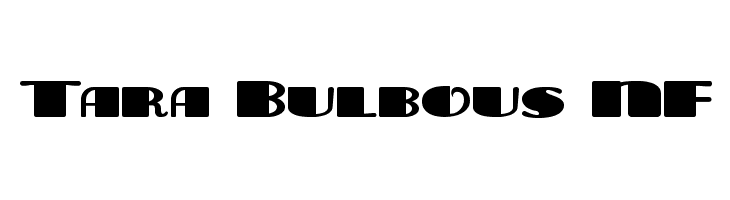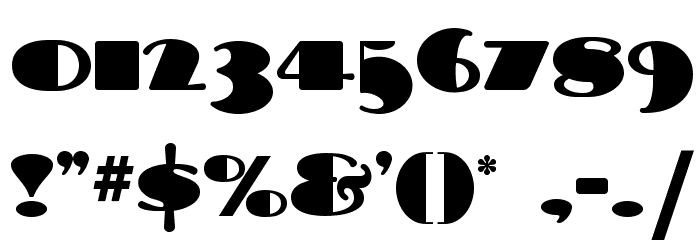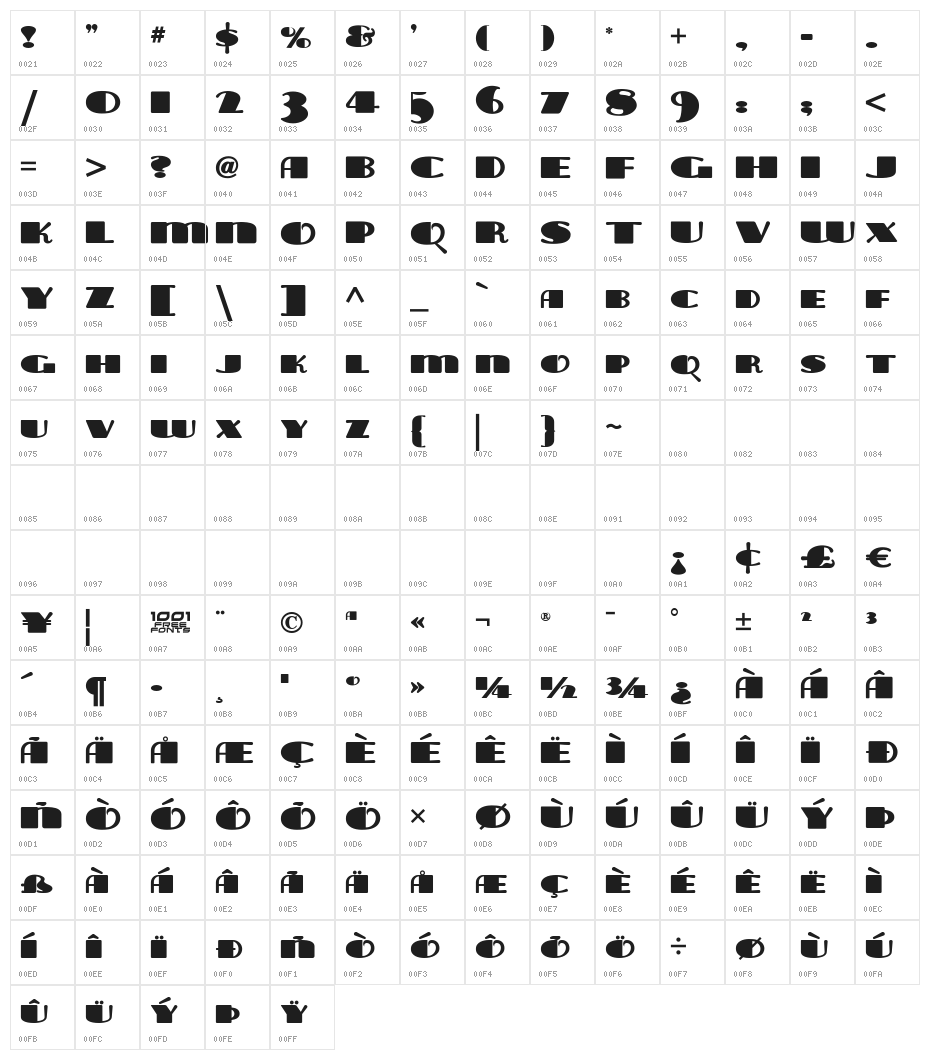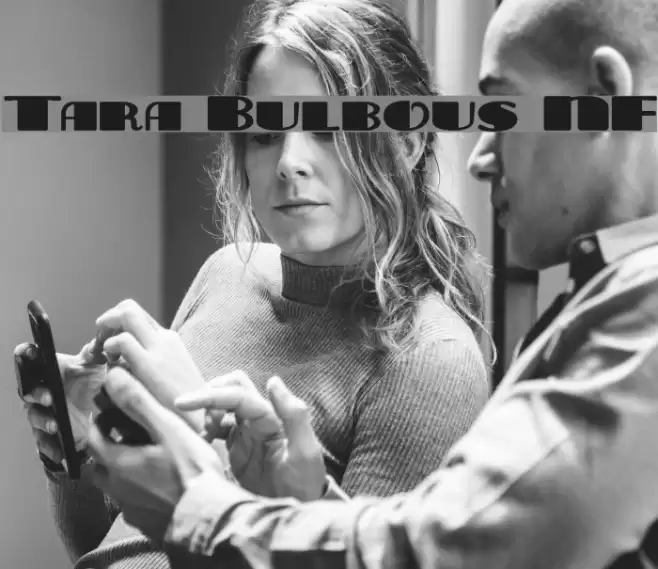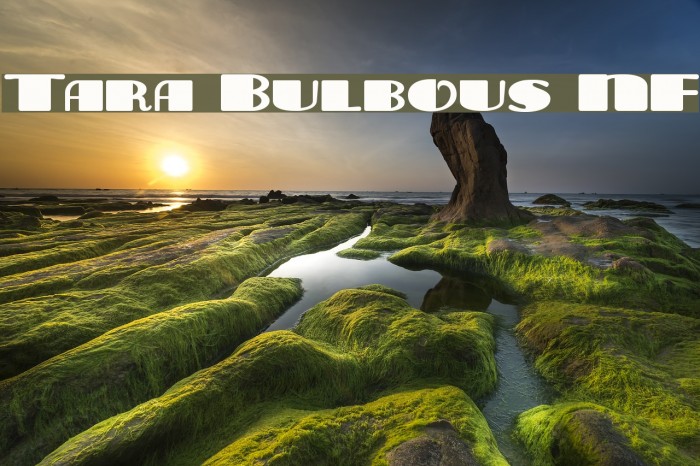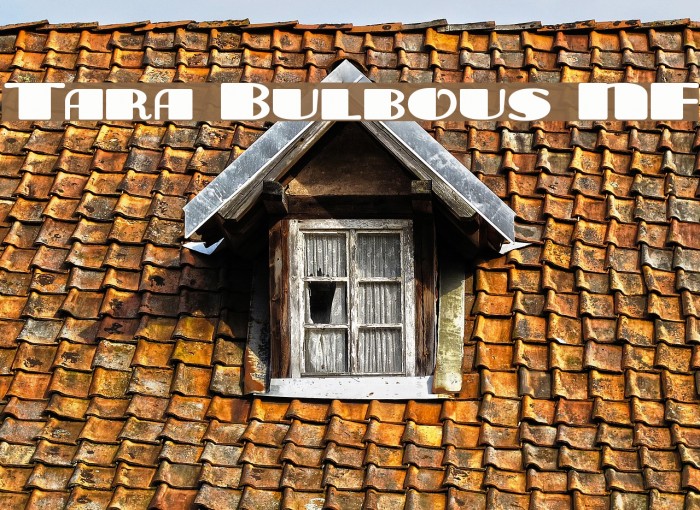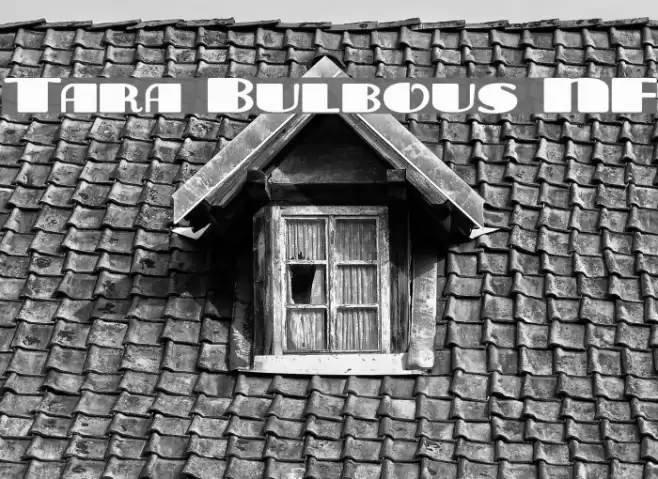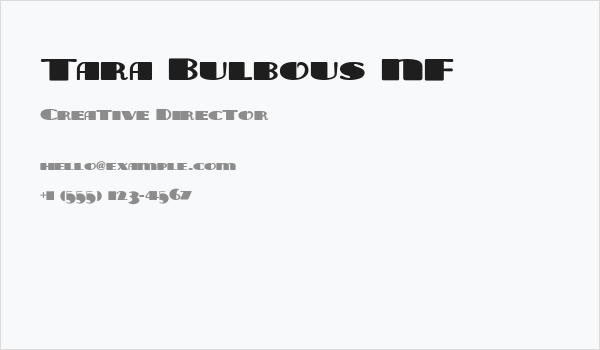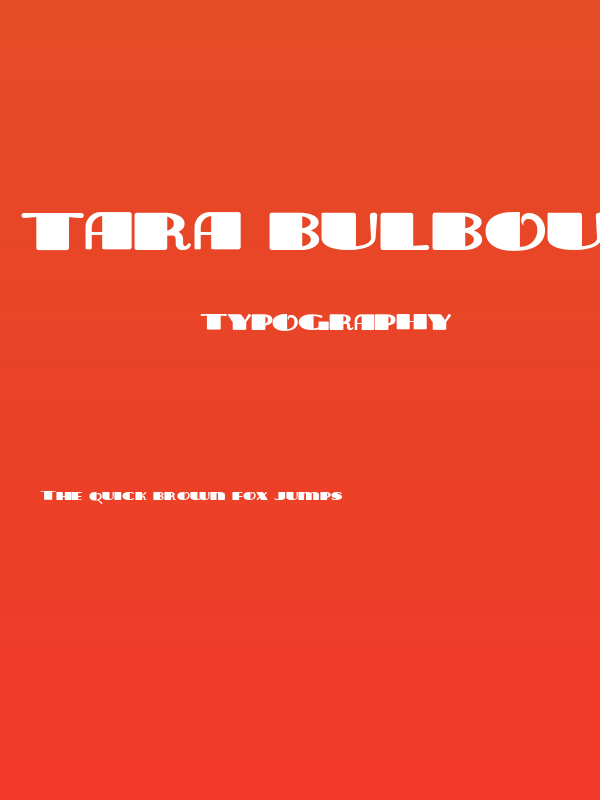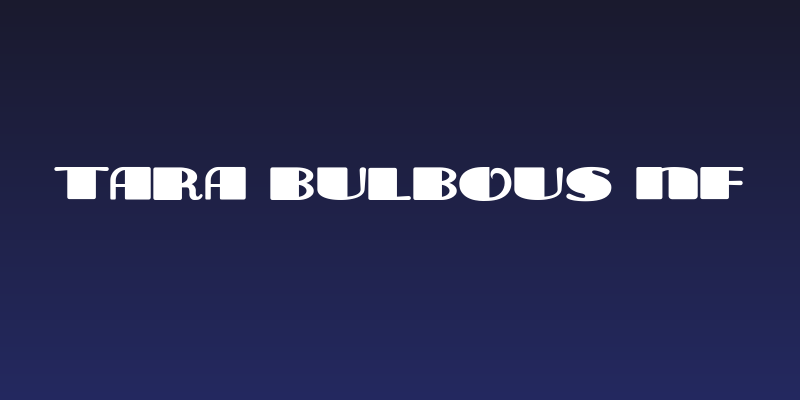
Tara Bulbous NF Font
Tara Bulbous NF Description
This font features a bold and playful design with a bulbous, rounded appearance. The characters are wide and have a strong presence, making them ideal for attention-grabbing headlines or logos. The uppercase letters are particularly distinctive, with a unique blend of geometric and organic shapes. The lowercase letters maintain the same bold style, ensuring consistency across different text sizes. Numbers and special characters are equally bold and rounded, fitting seamlessly with the overall aesthetic. The font's design is modern and decorative, with a touch of retro flair, making it suitable for creative and artistic projects.